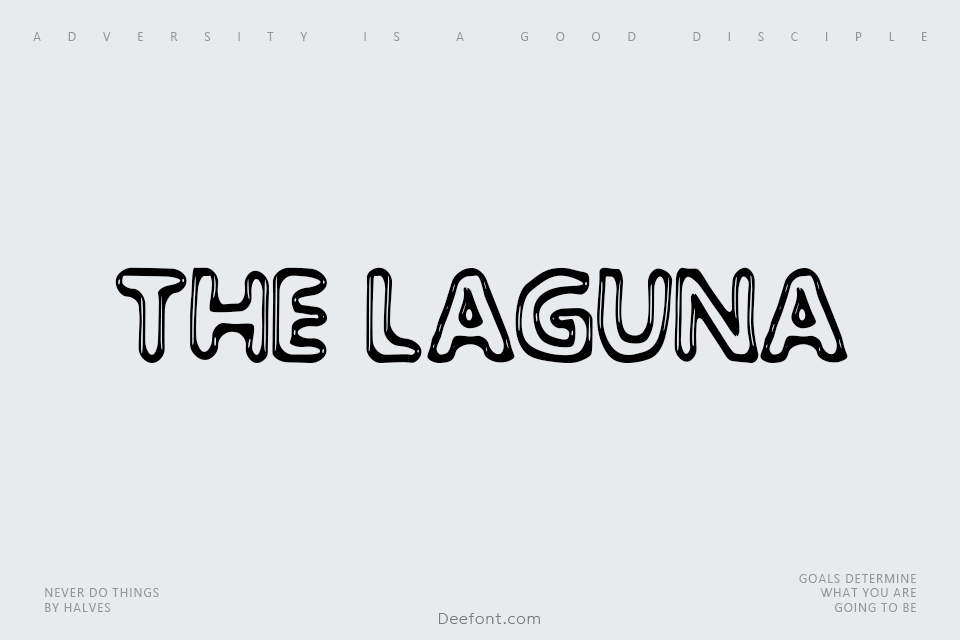
The Laguna Font
The Laguna is a playful and bold decorative display font featuring a thick outline that gives each character a three-dimensional appearance. Designed with uppercase and lowercase letters, this font combines comic and cartoon-like aesthetics with consistent stroke width, making it ideal for eye-catching designs. Perfect for headlines, logos, posters, and playful branding projects requiring a lively and dynamic feel.ffonts